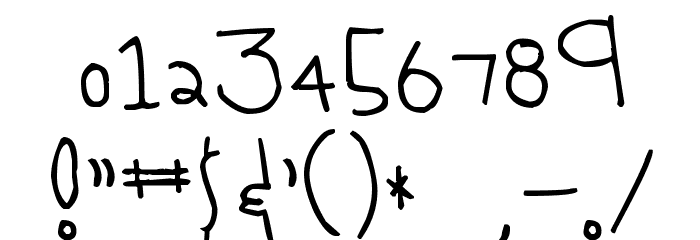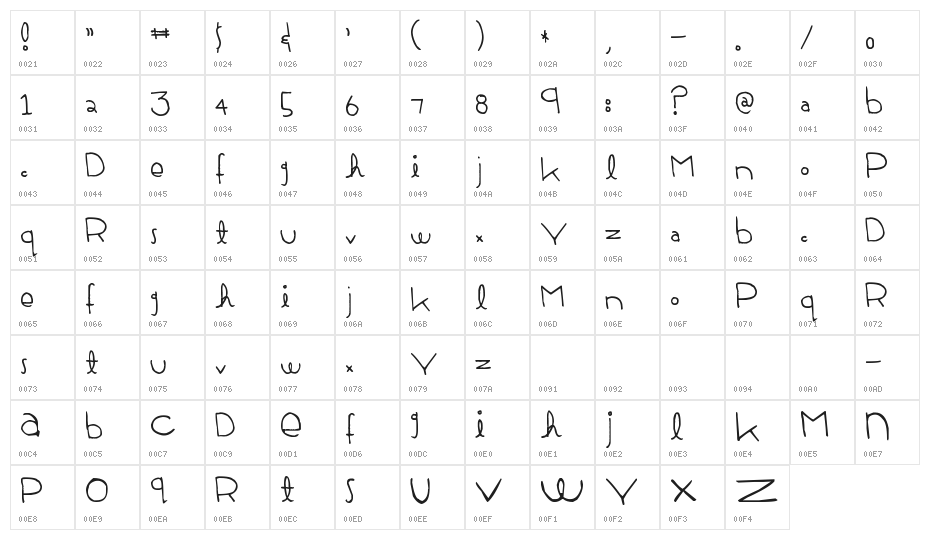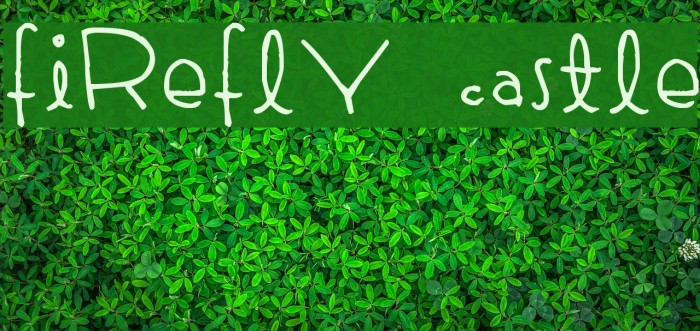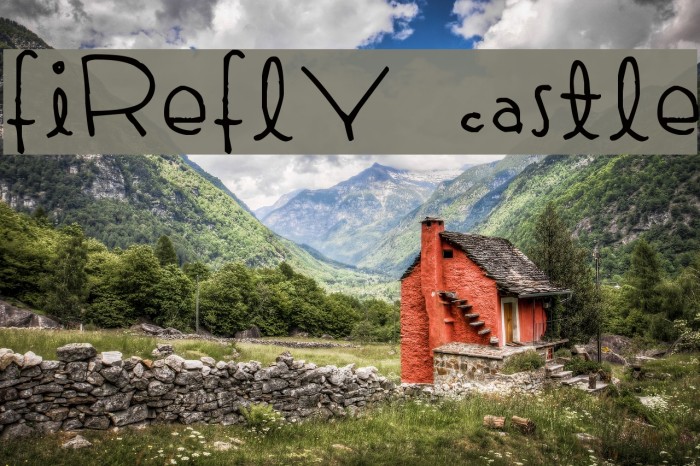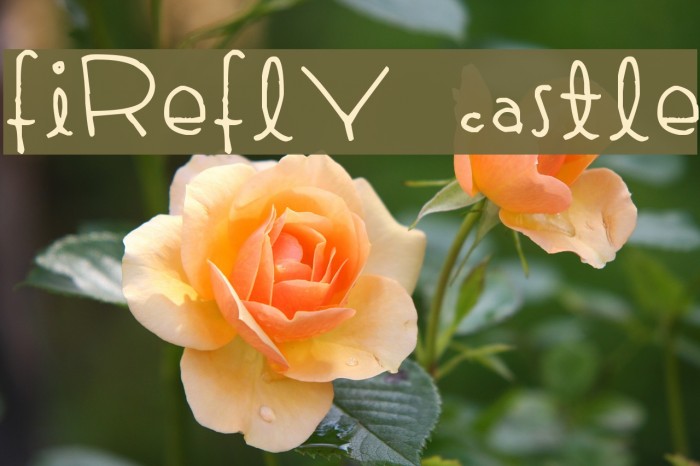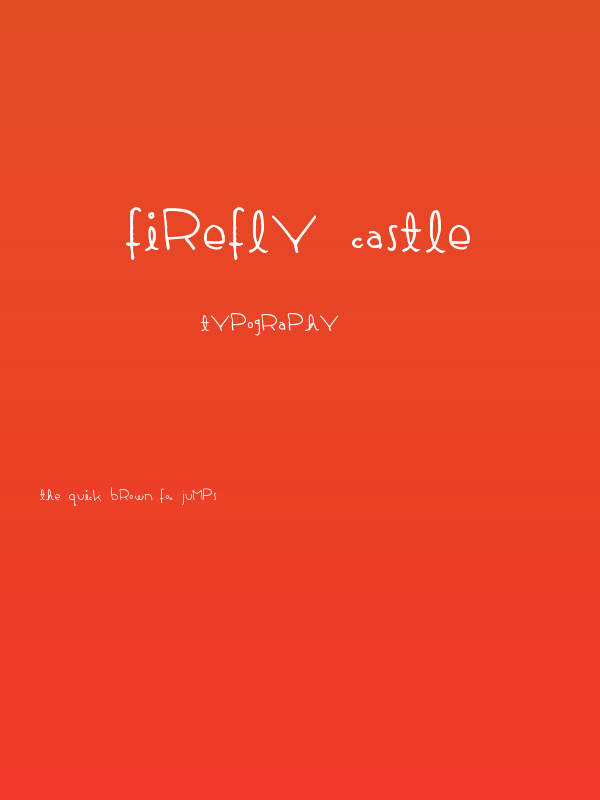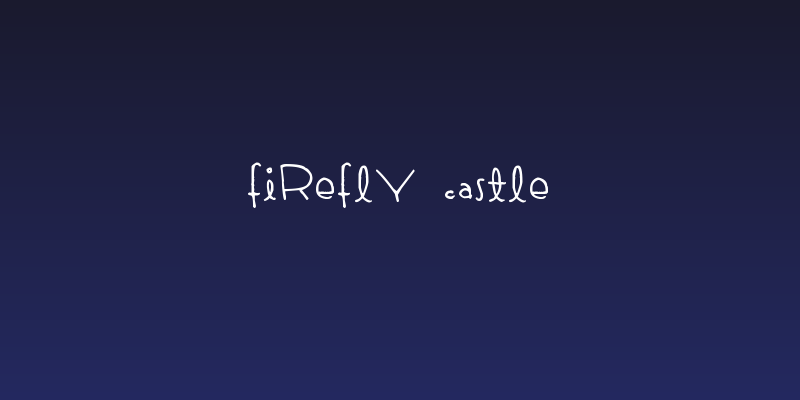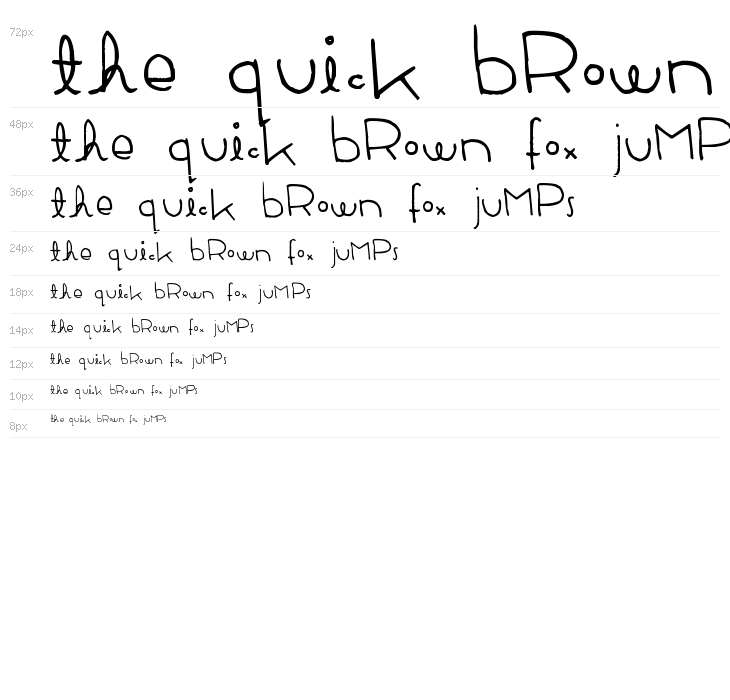
Firefly Castle Font
Firefly Castle Description
This font features a playful and whimsical handwritten style, characterized by its uneven strokes and casual appearance. The letters have a freeform, organic quality, with varying heights and angles that give it a lively and informal feel. The uppercase and lowercase letters maintain a consistent style, with a slight slant and irregular baseline that adds to its charm. The numerals and special characters follow the same playful design, making it suitable for creative and artistic projects. The overall look is reminiscent of a child's handwriting, making it ideal for projects that require a personal touch.
| Use Case | Headlines, Creative projects, Informal text |
| Proposed Projects | Ideal for children's books, greeting cards, personal blogs, and creative branding projects. |